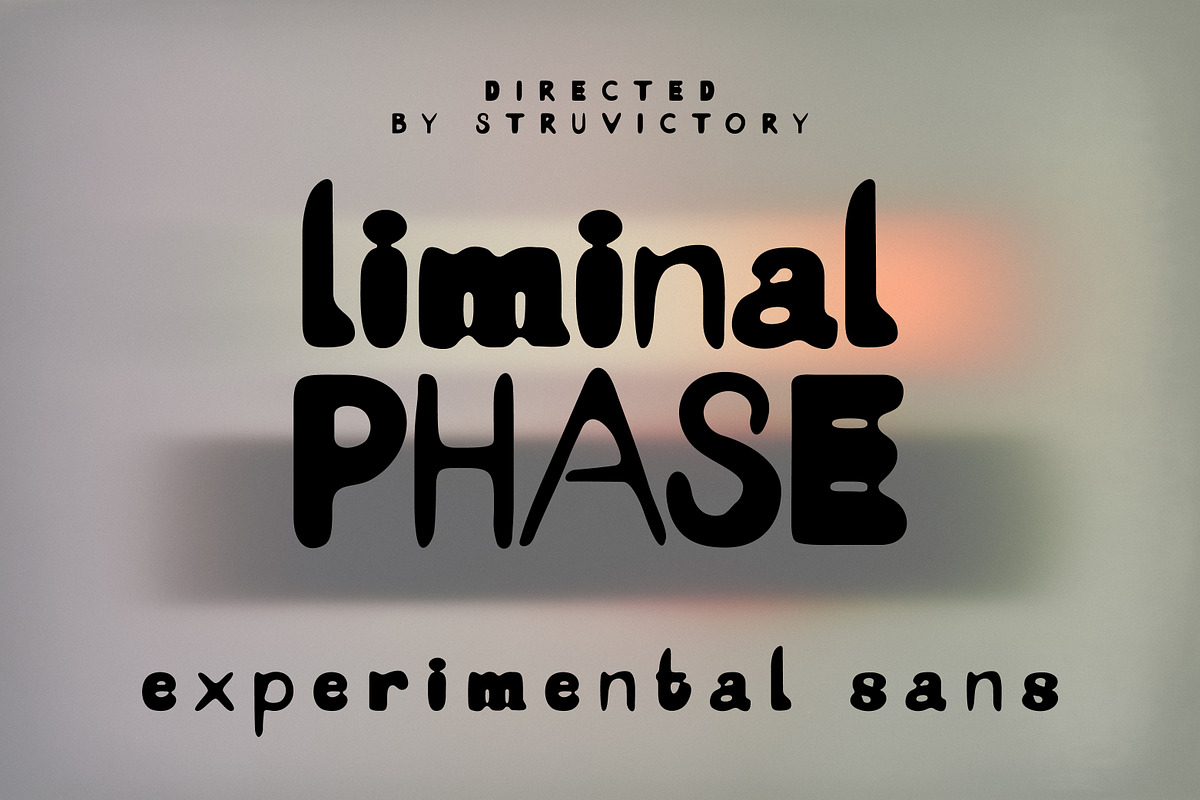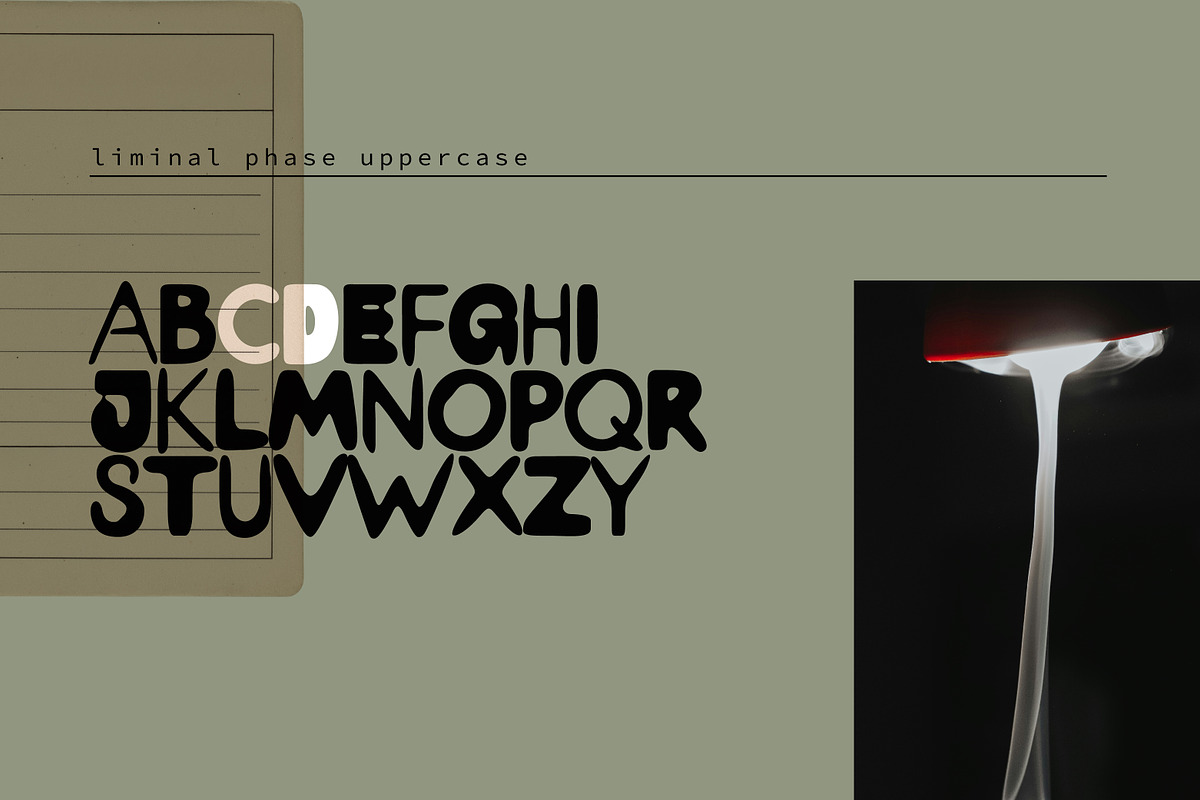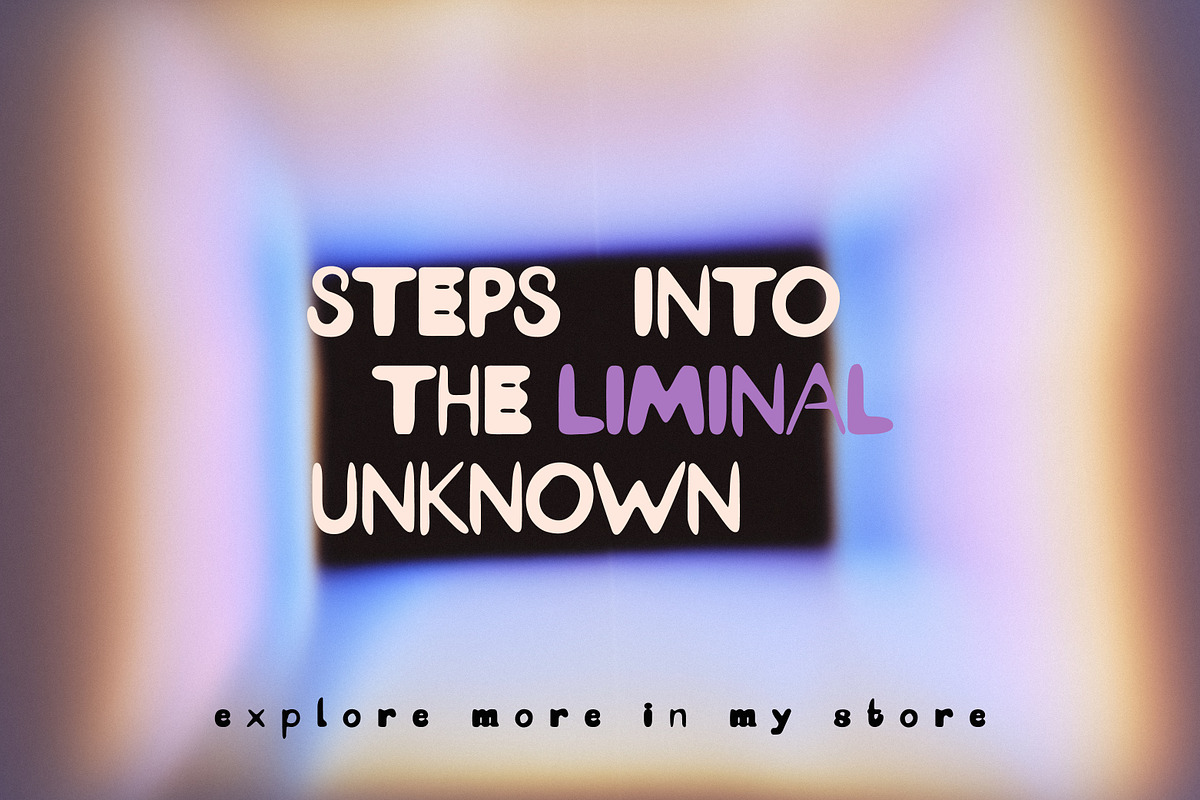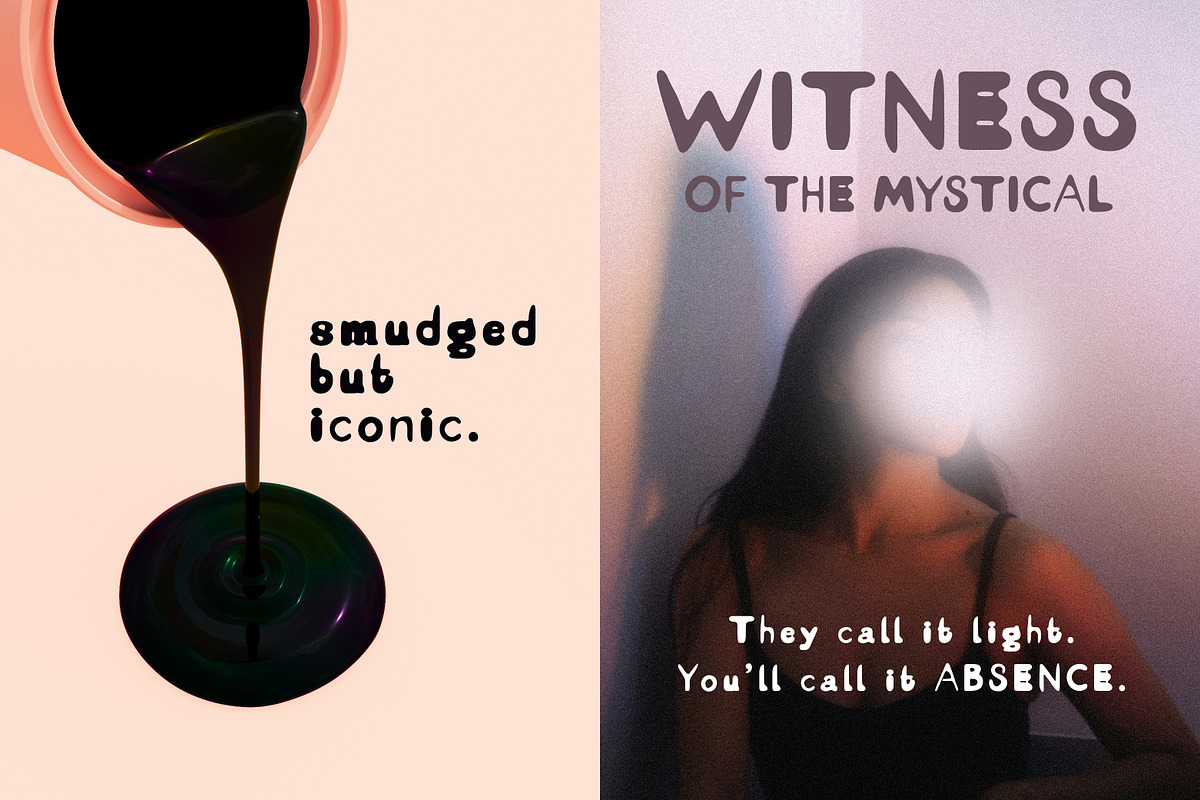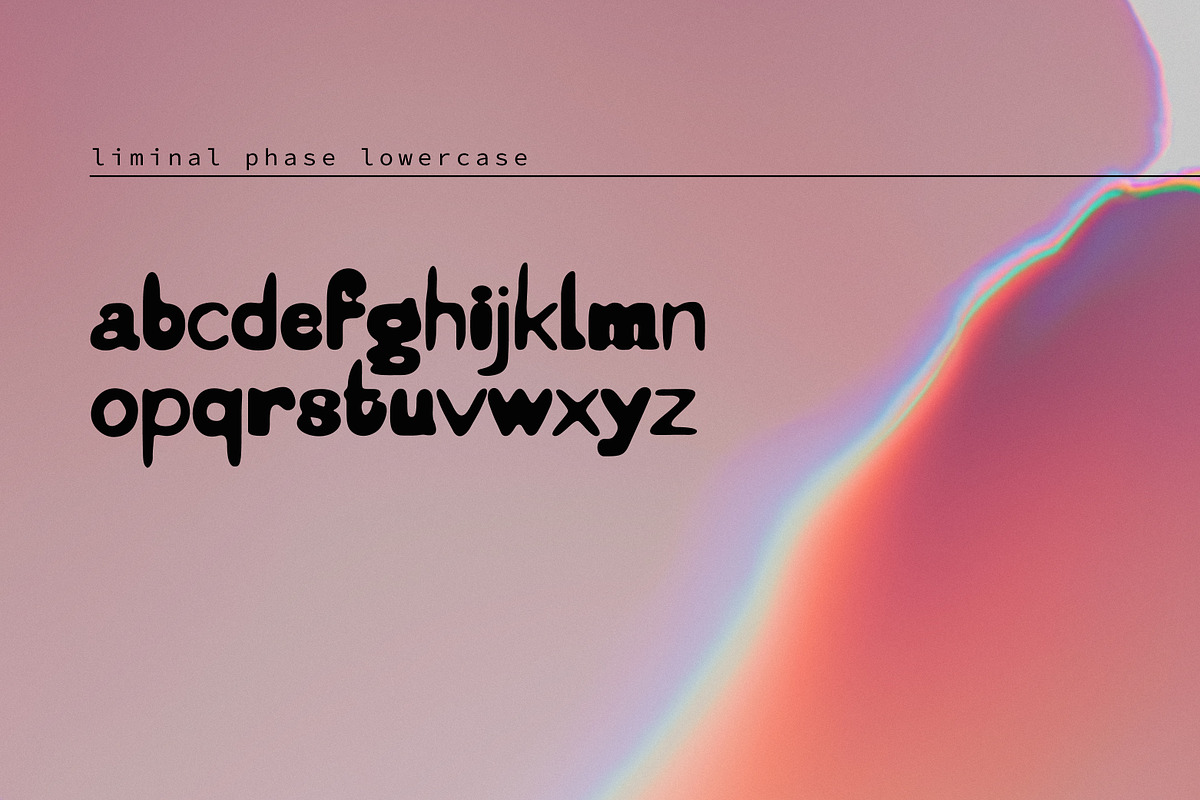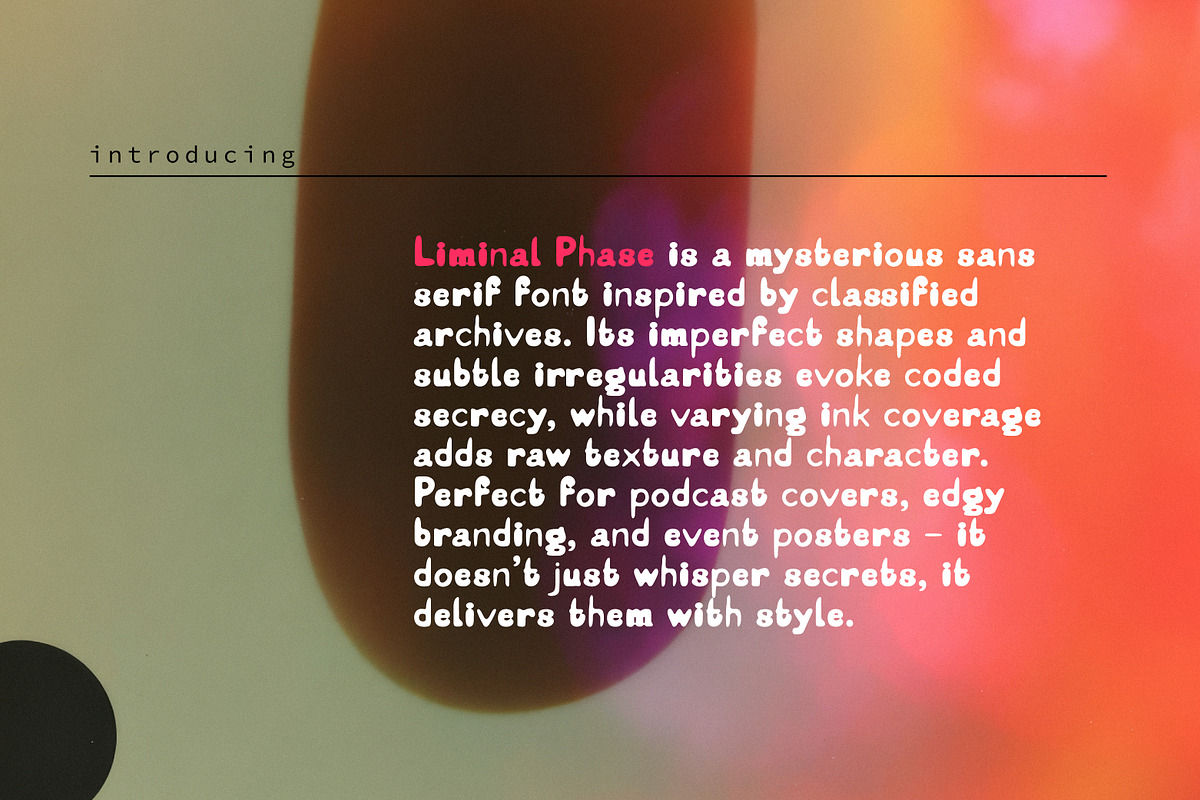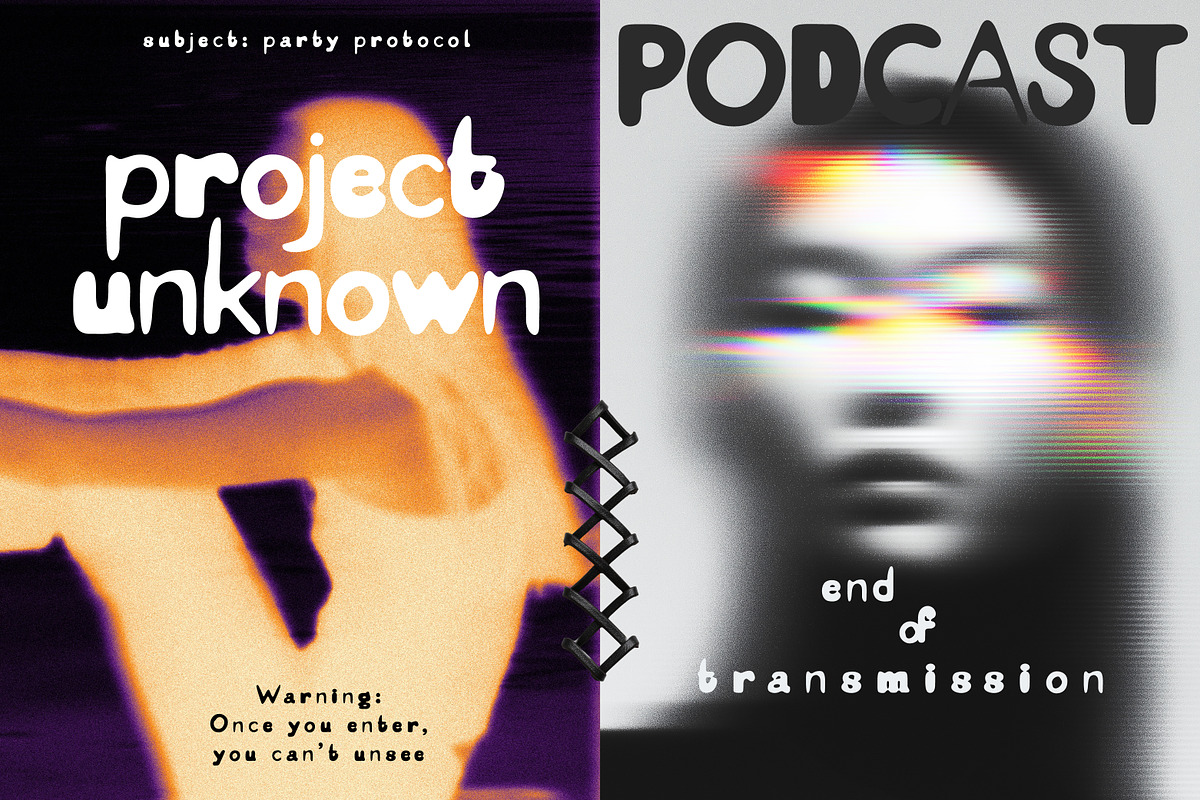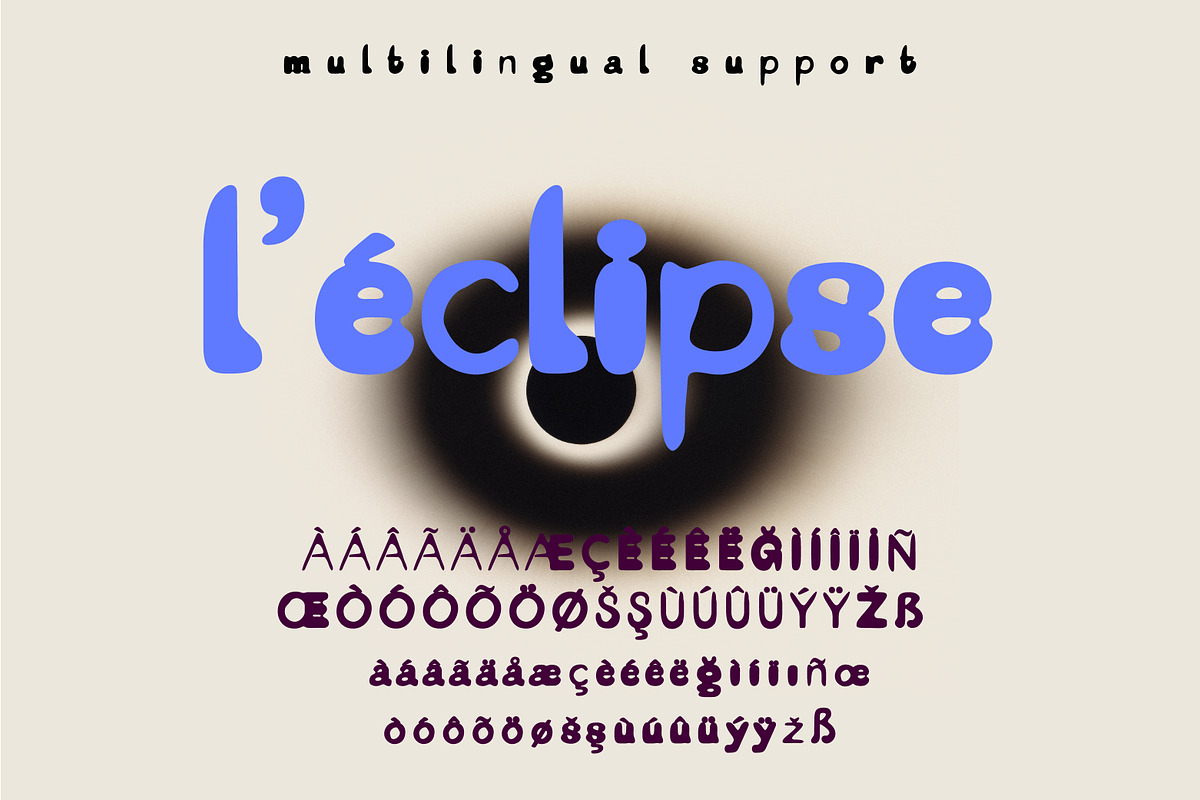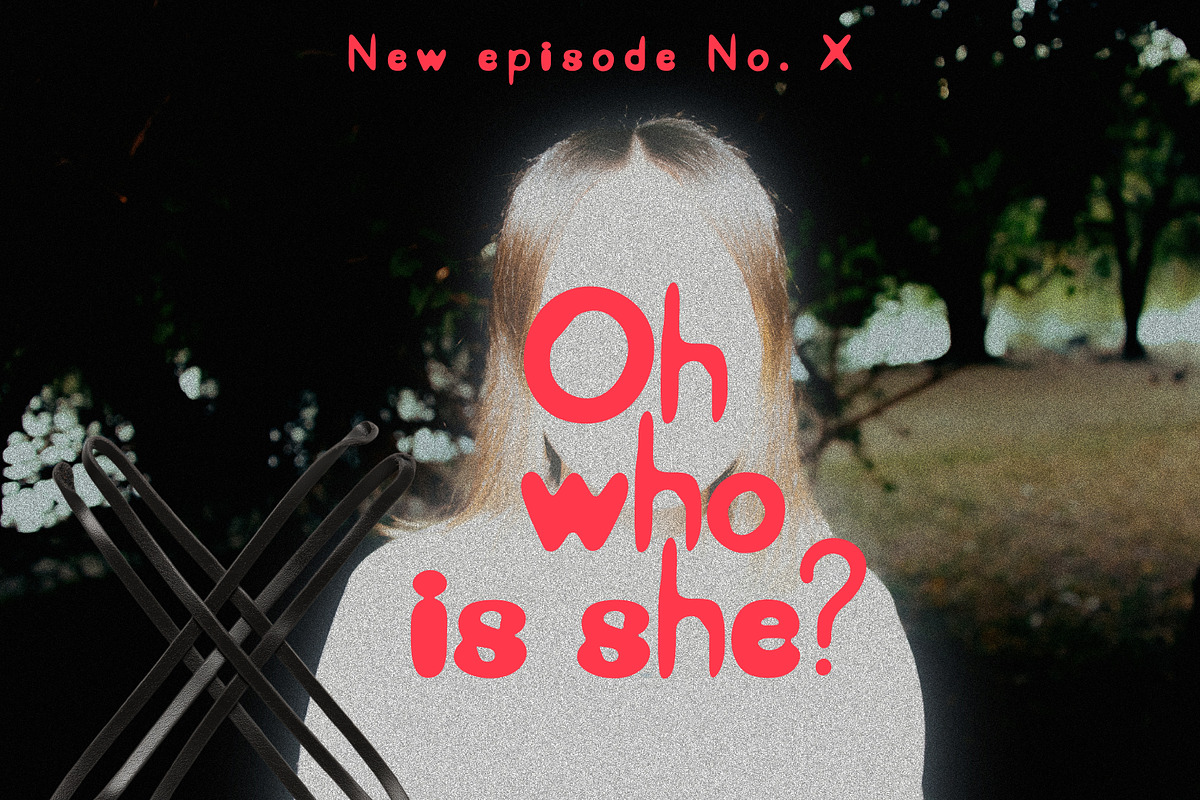
LiminalPhase Messy Experimental Sans
Liminal Phase is an experimental sans serif with letters showing varying degrees of imprint, giving each character a tactile, in-between feel. Its imperfect shapes and subtle irregularities evoke coded secrecy, while varying ink coverage adds raw texture and character. Perfect for podcast covers, edgy branding, and event posters — it doesn’t just whisper secrets, it delivers them with style.